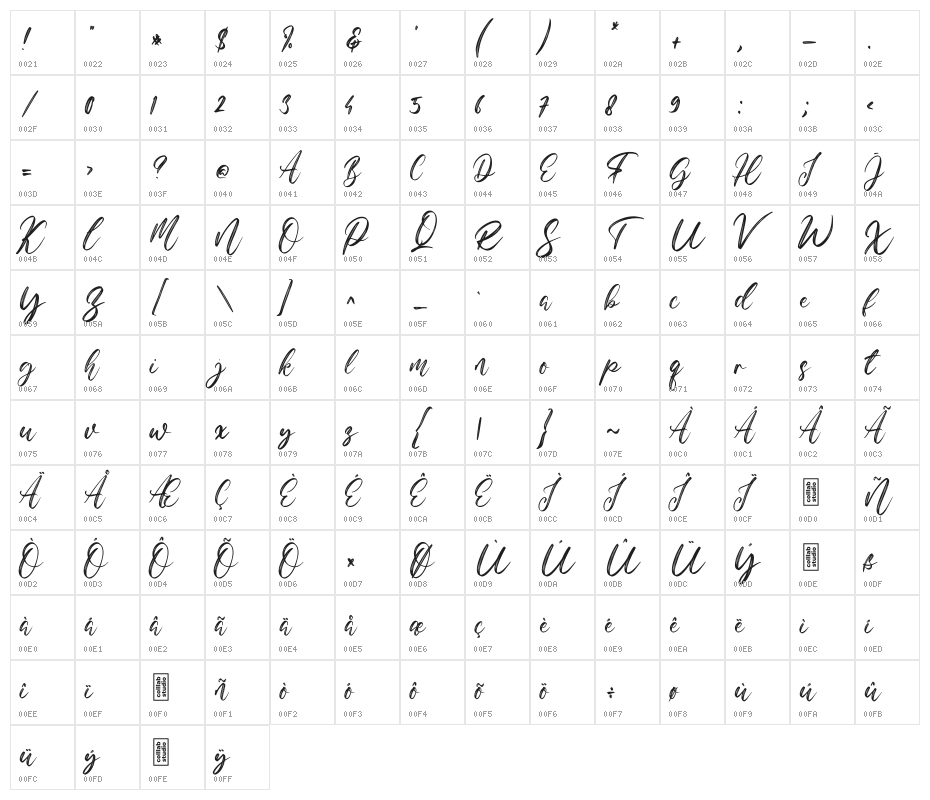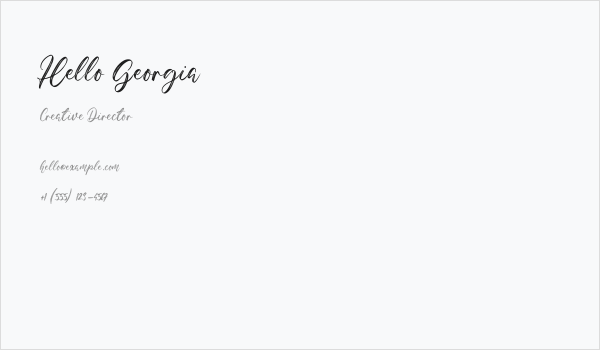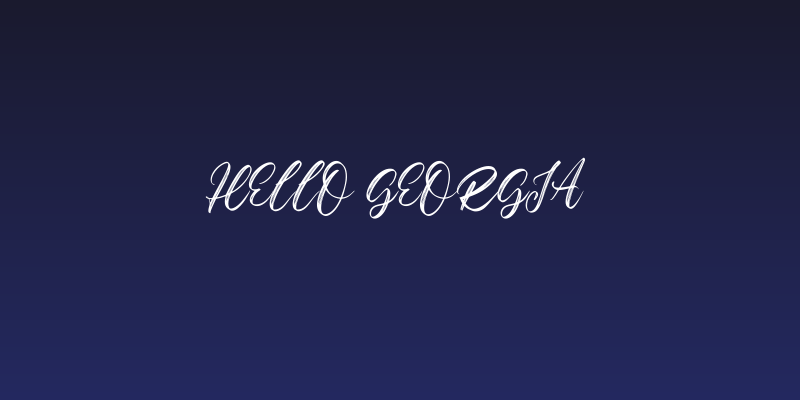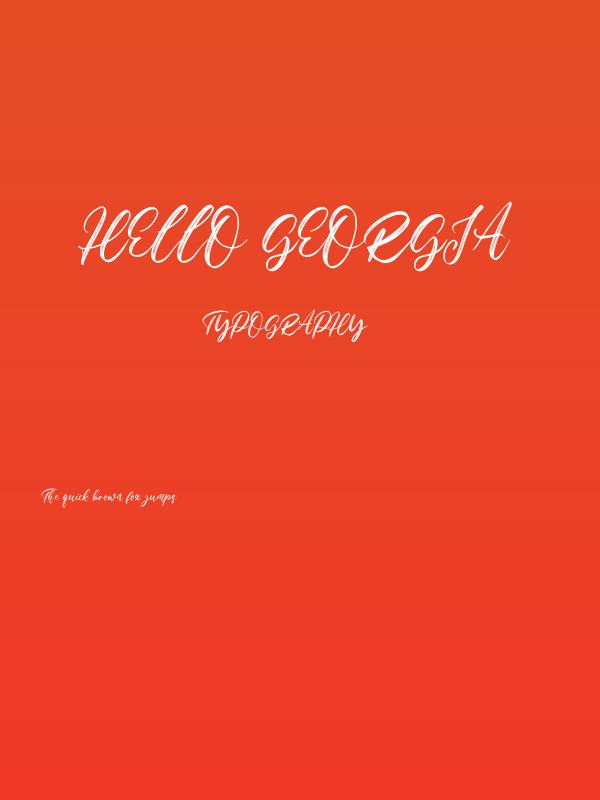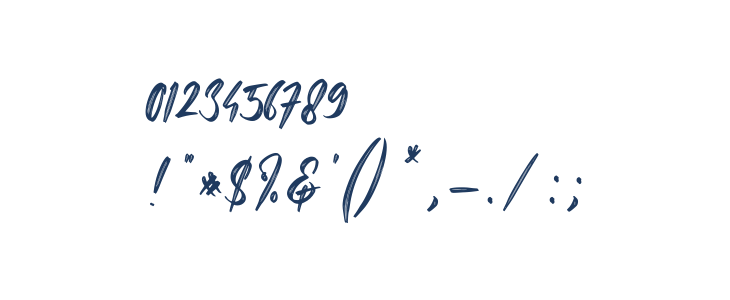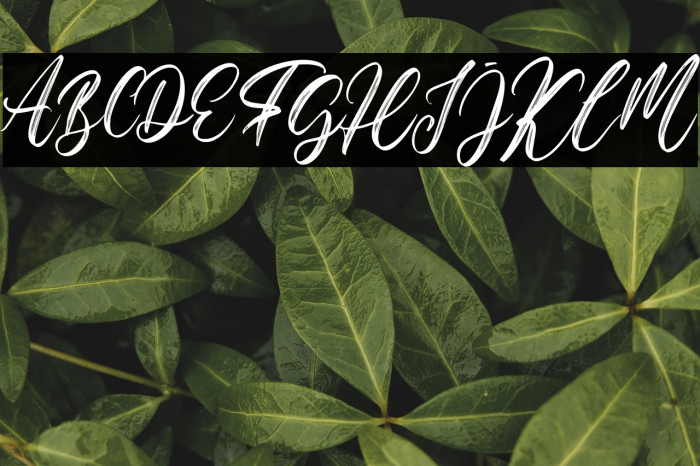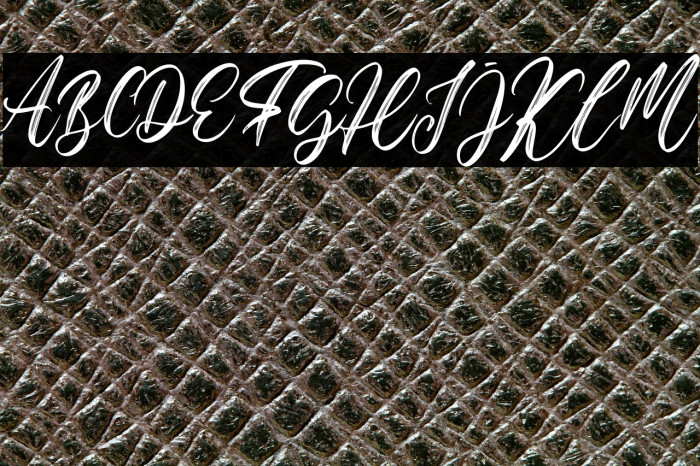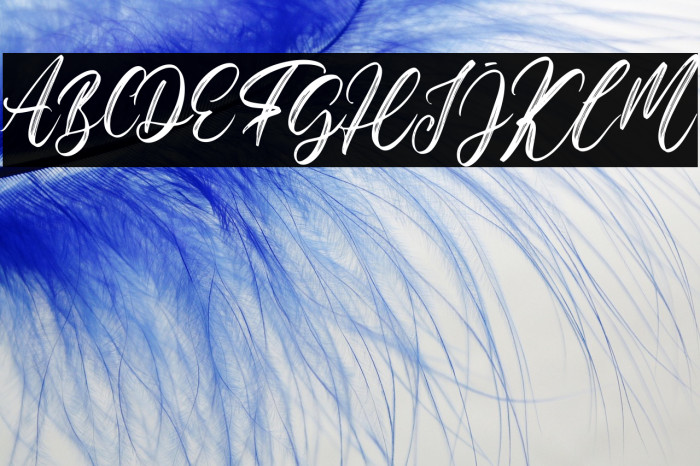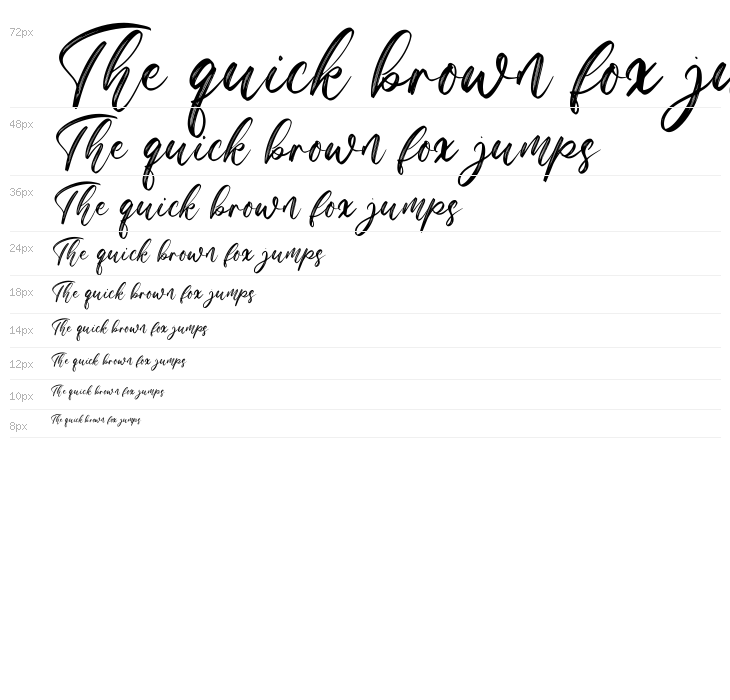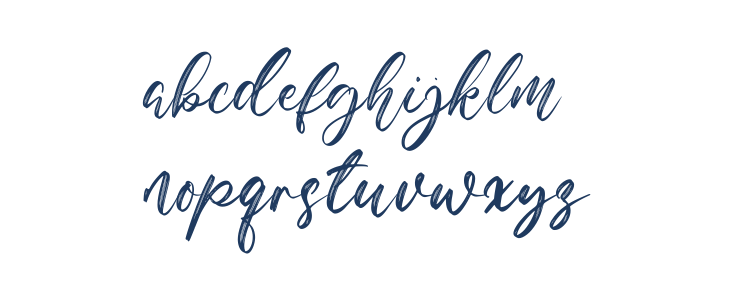
Hello Georgia Font
Hello Georgia Description
This font features a dynamic and flowing script style, characterized by its elegant and fluid letterforms. The strokes are smooth and connected, giving it a handwritten appearance that is both sophisticated and approachable. The uppercase letters are bold and prominent, while the lowercase letters maintain a consistent flow, enhancing readability. The numerals and special characters are designed to complement the overall style, ensuring versatility across different uses. The font's artistic flair makes it suitable for creative projects, adding a personal touch to any design.